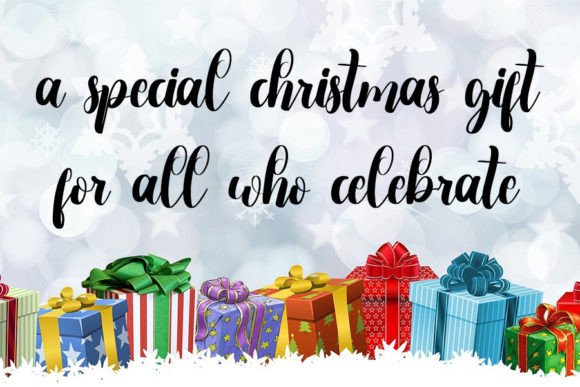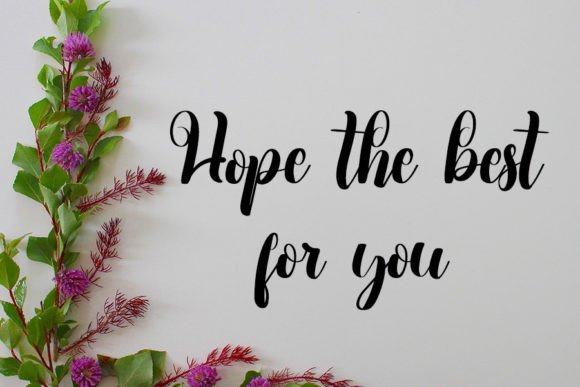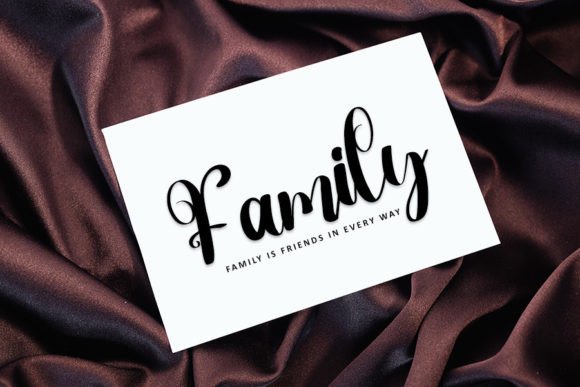
Deck the Halls with Christmas Font
There’s something magical about the holiday season – the twinkling lights, the cozy atmosphere, and the endless possibilities for creative expression. As a designer, you know that Christmas is the perfect time to unleash your imagination and get into the festive spirit. Whether you’re working on a holiday card, a gift tag, or a social media post, the right font can make all the difference.
Enter the Christmas Font, a beautiful handwritten font that embodies the essence of the season. With its elegant touch and timeless style, this font is the perfect addition to any holiday project. Its distinct character makes it stand out from more generic fonts, adding a touch of personality to your designs. Whether you’re a seasoned designer or just starting out, the Christmas Font is a valuable asset to have in your toolkit.
Key Features of Christmas Font
- Unique Characteristics: Christmas Font features intricate, hand-drawn designs with a festive and whimsical feel, making it perfect for holiday-themed projects.
Designer Review: Christmas Font
Overall, I think Christmas Font is a decent choice for festive designs, but it has some limitations that hold it back from being a truly exceptional font.
- Catchy and playful, perfect for holiday-themed designs
- Lots of customization options for different elements (e.g. stars, trees, etc.)
- Looks great in bold, making it perfect for headings and titles
- Some of the elements (e.g. snowflakes) can look a bit too kitschy and overwhelming
- Lack of versatility – it’s really only suited for Christmas-themed designs, which limits its use cases
- Some of the customization options can feel a bit clunky and hard to navigate
While Christmas Font is a fun and playful choice for holiday designs, it’s not the most sophisticated or versatile font out there. If you’re looking for something a bit more elegant or modern, you might want to consider something else. But if you’re going for a fun, festive look, Christmas Font could be a good fit.
Tips: Use Christmas font for festive headings, such as ‘Merry Christmas’ or ‘Happy Holidays’. Experiment with different font sizes and colors to create a visually appealing design.
Tips: Use Christmas font to create festive graphics, such as holiday cards or gift tags. Experiment with layer blending modes and effects to add depth and interest to your design.
Tips: Use Christmas font to create festive presentations or documents, such as holiday newsletters or party invitations. Experiment with different font sizes and colors to create a visually appealing design.
Some common use cases for Christmas font include:
- Holiday cards and invitations
- Festive graphics and social media posts
- Holiday party decorations and signage
Alternatives to Christmas Font
Great Vibes is a modern, elegant script font that is perfect for creating a festive atmosphere without being too over-the-top. It’s ideal for titles, headings, and short phrases. When to use: For a more subtle and sophisticated Christmas design, Great Vibes is a great choice.
Comparison to Christmas Font: Great Vibes is more refined and less kitschy than Christmas Font, making it suitable for a wider range of designs.